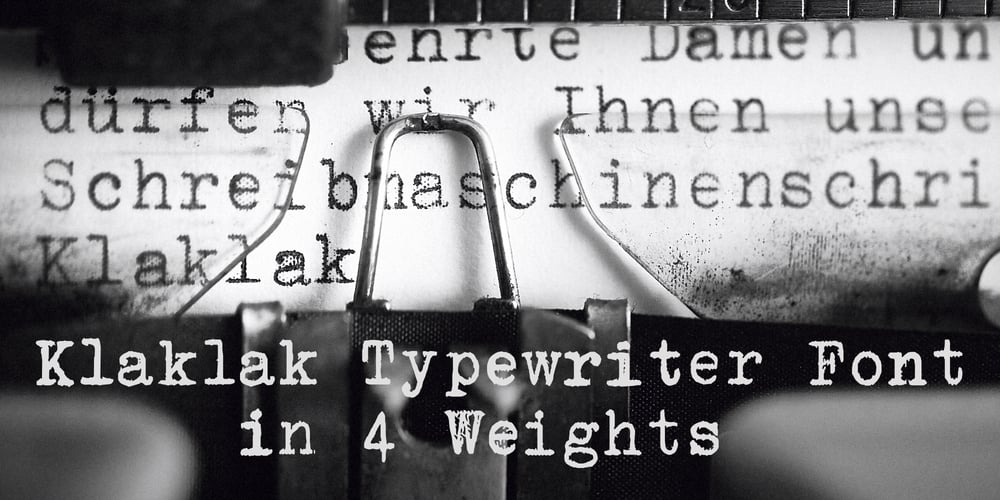
Klaklak
Klaklak font
Klaklak Font Family was designed by Werner Eschmann and published by Fontroll. Klaklak contains 6 styles and family package options. Oh no, not another typewriter font! But Klaklak is different. Not only has Klaklak four weights from worn out ink (light) to typing twice (bold), an Italic (which is Regular with authentic underlines as there is no Italic on typewriters) and an x-through font called Klaxxx (no need to erase your typos โ€“ just x them out (just kidding ๐Ÿ˜Š)). It also does a lot to avoid repeating letterforms by first replacing about 320 common letter combinations by ligatures and then mixing them up with 4 style sets which results in about 1300 ligatures and more than 2600 glyphs in total per font. The result is a very realistic appearance of a mechanical typewriter. All you have to do is turn on Ligatures and Contextual Alternates in your favourite layout app.Of course Klaklak is multilingual, supports a lot of Latin based languages and has all glyphs for even demanding layout tasks.Enjoy!